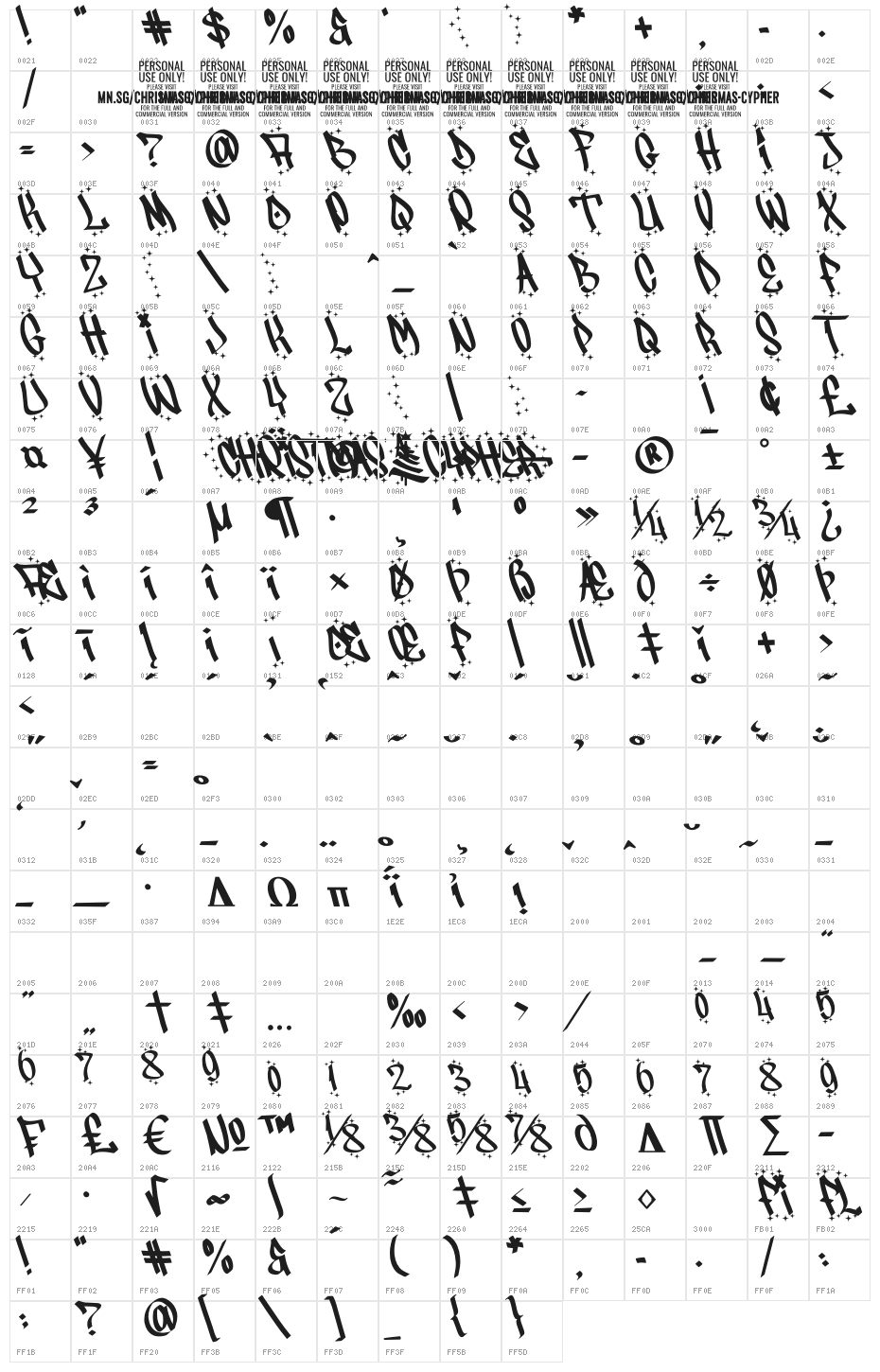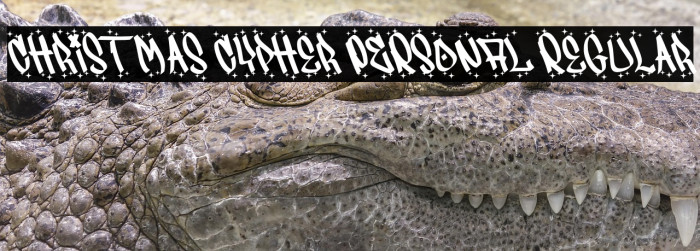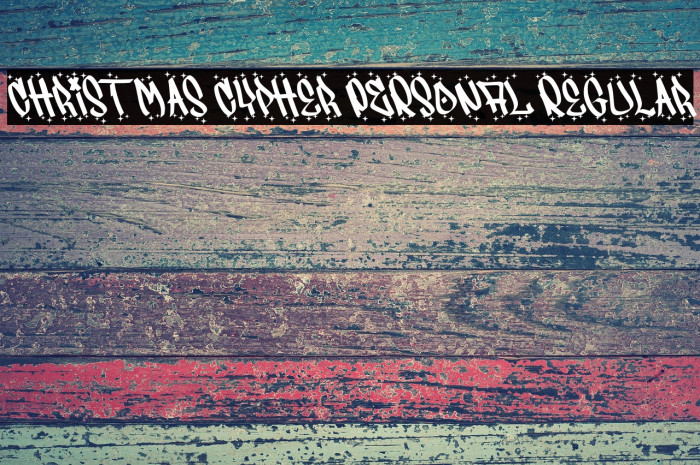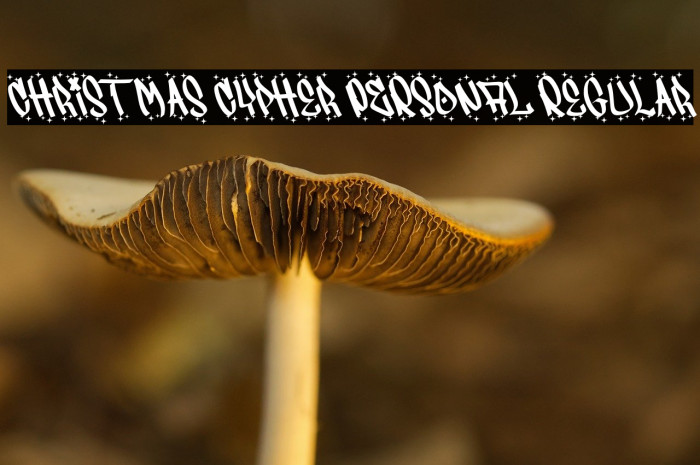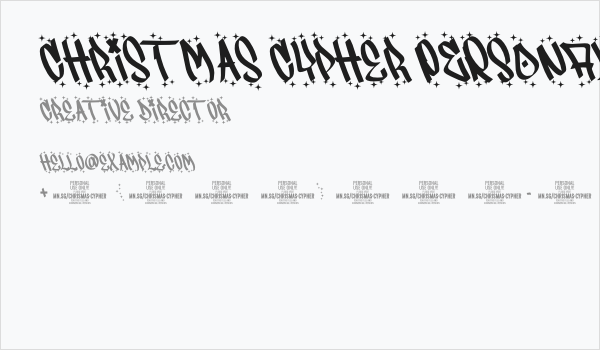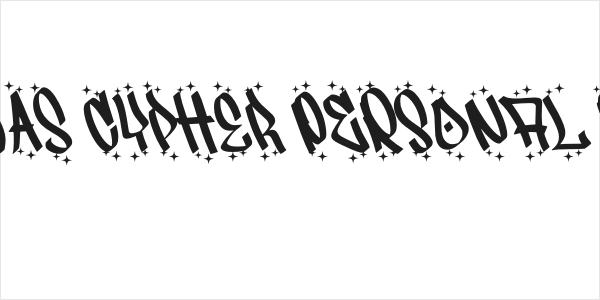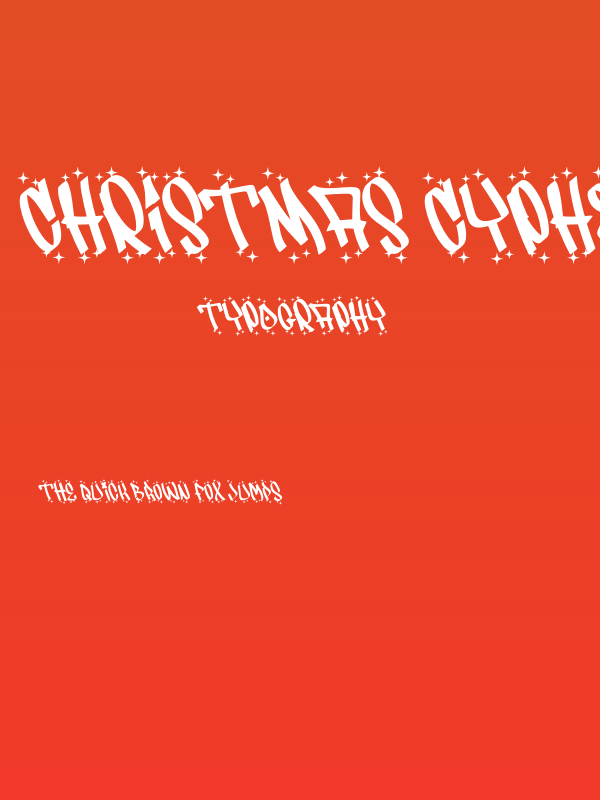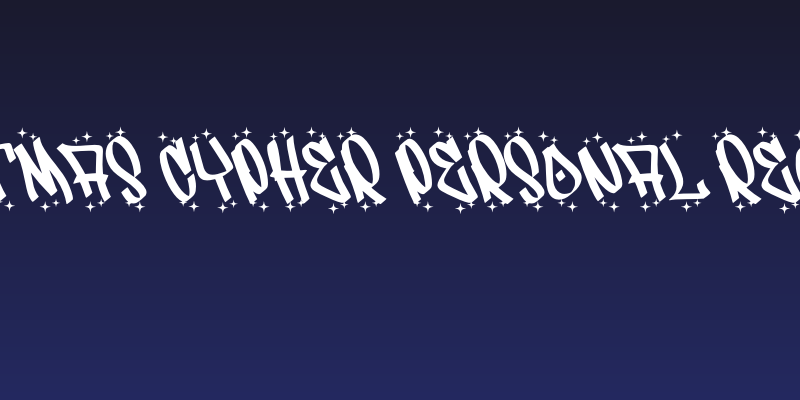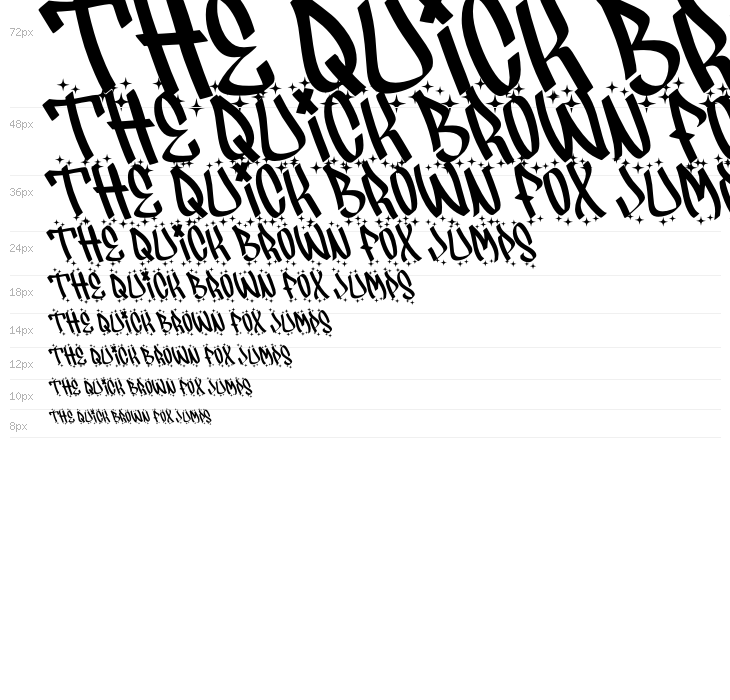
Christmas Cypher PERSONAL Regular Font
Christmas Cypher PERSONAL Regular Description
This font features a bold and dynamic style with a playful, festive flair. The characters are adorned with star-like decorations, giving it a whimsical and celebratory appearance. The uppercase and lowercase letters maintain a consistent, energetic flow with sharp angles and a slightly condensed form. The numbers and special characters are equally expressive, maintaining the decorative theme. This font is perfect for capturing attention and adding a unique, festive touch to any design.
| Proposed Projects | Ideal for holiday-themed posters, greeting cards, festive event invitations, and playful branding projects. |